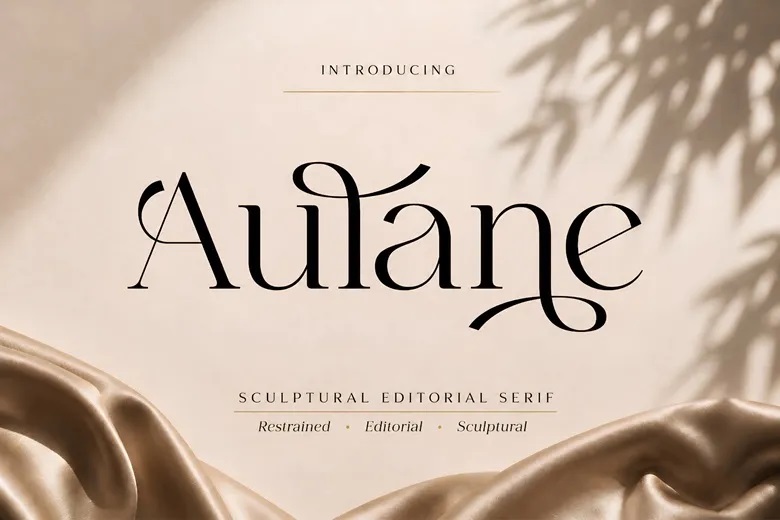
Aulane Font
Aulane is a sculptural editorial serif made for brands that want to stand out without going over the top. With its balanced contrast, well-shaped letters, expressive alternates, and elegant ligatures, Aulane helps designers give brands a thoughtful, polished look.
It’s a great choice for visual identities where the typography needs to set the mood, build recognition, and offer subtle distinction without being too decorative. You can use the standard characters for a clean, simple look.
Or try alternates, ligatures, and swashes to create unique wordmarks, editorial titles, packaging, or campaign typography.
Aulane Serif Font